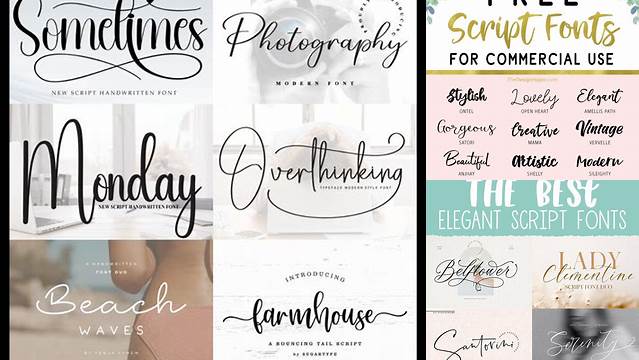
Free Commercial Use Script Fonts For Stunning Designs
Hey design lovers! Ever found yourself scrolling endlessly for that perfect script font that screams elegance but doesn't cost a dime? Yeah, me too! Finding high-quality, free for commercial use script fonts can feel like striking gold. These beautiful, flowing letterforms are fantastic for adding a personal touch, a touch of sophistication, or even a playful vibe to your projects. Whether you're designing a wedding invitation, a brand logo, a social media graphic, or a personal blog header, the right script font can make all the difference. But the key phrase here is 'commercial use.' You can't just grab any pretty font off the internet and slap it on a product you're selling. You need to make sure the license explicitly allows for commercial use. Luckily, there are tons of amazing designers and foundries out there who generously share their creations with commercial licenses, allowing us to use their work legally in our paid projects. So, let's dive into the wonderful world of free script fonts that won't break the bank but will definitely make your designs pop!
The Allure of Free Commercial Script Fonts
The magic of a script font lies in its ability to mimic the natural flow of handwriting. This makes it incredibly versatile, capable of conveying a wide range of emotions and styles. From the delicate and airy strokes of a modern calligraphy font to the bold and dramatic flair of a vintage brush script, these fonts can instantly elevate your design. When we talk about free for commercial use script fonts, we're essentially unlocking a treasure chest of design possibilities without the hefty price tag. This accessibility is crucial for small businesses, startups, freelancers, and hobbyists who are working with limited budgets but still want their brand or project to look polished and professional. The ability to legally use these fonts in materials intended for sale, marketing campaigns, or client work means you can build a strong visual identity without incurring licensing fees. It’s like getting a professional designer's touch without the agency cost. The inherent personality of script fonts adds a human element that sans-serif or serif fonts might not capture as easily. They can make your brand feel more approachable, your invitations more intimate, and your social media posts more engaging. Think about wedding invitations; a beautiful script font can set the tone for the entire event, hinting at the elegance and romance to come. For branding, a carefully chosen script font can communicate luxury, creativity, or a friendly, handcrafted feel. The key is understanding the nuances of each font and how it aligns with your brand’s message and target audience. With the vast array of free for commercial use script fonts available, you can experiment and find the perfect fit that resonates with your unique vision, ensuring your designs not only look good but also communicate effectively and ethically.
Finding Your Go-To Free Commercial Script Fonts
The Versatility of Script Fonts in Branding
When it comes to branding, the right free for commercial use script font can be a game-changer. It’s not just about looking pretty; it's about conveying the personality and essence of your brand. Think about a high-end patisserie; a delicate, elegant script font on their logo and packaging instantly communicates sophistication and quality. Contrast that with a craft brewery; a bolder, perhaps slightly distressed script font might evoke a sense of tradition, authenticity, and a hands-on approach. The key is to match the font’s style to your brand’s voice. Are you playful and energetic? Try a bouncy, casual script. Are you classic and timeless? Opt for a more formal, calligraphy-inspired script. Free for commercial use script fonts allow you to experiment with different brand identities without a significant financial investment. This is particularly beneficial for startups and small businesses trying to establish their presence. You can test out various script styles on your website, social media, marketing materials, and even product labels to see what resonates best with your target audience. Remember, consistency is key in branding. Once you’ve chosen a script font, use it consistently across all your touchpoints. However, don't feel pressured to use it everywhere. Script fonts are often best used as accent fonts – for headlines, call-to-action buttons, or signature elements – paired with a more legible sans-serif or serif font for body text. This creates visual hierarchy and ensures readability while still injecting that unique personality. The accessibility of free for commercial use script fonts empowers you to build a memorable and effective brand identity that stands out from the competition, all while staying budget-friendly.
Script Fonts for Invitations and Stationery
Weddings, birthdays, anniversaries – special occasions often call for a touch of elegance, and that's where free for commercial use script fonts truly shine. For wedding invitations, a flowing, romantic script font can set the tone for the entire celebration, evoking feelings of love, tradition, and sophistication. Imagine a beautiful script font for the couple’s names, contrasted with a cleaner serif font for the details. It’s classic, timeless, and utterly charming. Similarly, for baby shower invitations, a whimsical or playful script font can add a sweet, personal touch. The same goes for birthday cards, thank-you notes, and other personal stationery. Using free for commercial use script fonts allows you to create custom-designed stationery that feels incredibly personal and high-end, without the custom price tag. You can design your own save-the-dates, place cards, menus, and thank-you cards, all perfectly coordinated with a beautiful script font. This is especially valuable for DIY brides or anyone planning an event on a budget. Beyond just invitations, consider using script fonts for envelope addressing or as decorative elements on thank-you notes. The key is to balance the script font with more readable fonts for important information to ensure clarity. However, for purely decorative elements or highlighting names, a script font can be perfect. Many free for commercial use script fonts are designed with this very purpose in mind, offering the beautiful aesthetic of calligraphy without the need for professional design services. They empower you to add that special, handcrafted feel to your most cherished moments, making them even more memorable.
Exploring Different Styles of Free Commercial Script Fonts
The world of free for commercial use script fonts is incredibly diverse. You’ve got everything from the elegant strokes of modern calligraphy to the bold, brush-like strokes of a handwritten font. Let's break down some of the popular styles you'll encounter. Modern Calligraphy Fonts are characterized by their varying thick and thin lines, dramatic swooshes, and often an airy, elegant feel. They're perfect for wedding invitations, branding for lifestyle businesses, and social media graphics that aim for a sophisticated look. Then there are Brush Script Fonts, which mimic the look of a brush pen or paintbrush. These can range from subtle and refined to bold and energetic, often with a bit of texture. They work wonderfully for branding that wants to convey creativity, passion, or a handcrafted vibe. Casual Script Fonts offer a more relaxed, everyday handwriting feel. They’re typically easy to read and friendly, making them ideal for blogs, personal branding, or designs that need a touch of approachable warmth. Think of that neat, personal note you might write – that’s the vibe. We also have Vintage or Retro Script Fonts, inspired by lettering from past eras. These might have a bolder feel, perhaps with a slight slant or unique flourishes, reminiscent of old signage or classic advertisements. They're great for brands wanting to evoke nostalgia or a classic, established feel. Lastly, Display Script Fonts are designed for impact and often feature exaggerated flourishes, unique ligatures, or a very distinct style. While they might be less readable for long texts, they’re fantastic for eye-catching headlines, logos, and short bursts of text where style is paramount. Each of these styles, when available as free for commercial use script fonts, provides a unique avenue to express different moods and aesthetics in your design work. Exploring these variations allows you to build a rich font library that can cater to almost any creative brief.
Enhancing Readability with Script Fonts
While the aesthetic appeal of free for commercial use script fonts is undeniable, readability is a crucial factor, especially when using them for more than just decorative purposes. Script fonts, by their very nature, can sometimes be challenging to read, particularly in smaller sizes or for extended blocks of text. This is because the letters are often connected, with flourishes and varying baseline shifts that mimic handwriting. To ensure your message gets across loud and clear, smart pairing is your best friend. Use your chosen script font for headlines, titles, or key phrases where its style can make a big impact. Then, pair it with a clean, legible sans-serif or serif font for body copy. This creates a beautiful contrast and a clear visual hierarchy. For example, on a wedding invitation, use a gorgeous script font for the couple’s names and the main heading, but use a simple serif font for the date, time, and location details. Another tip is to choose script fonts that have a more open letterform design and less dramatic flourishing for areas where readability is more important. Some free for commercial use script fonts are specifically designed with enhanced readability in mind, offering a balance between style and legibility. When using script fonts, pay attention to letter spacing (kerning) and line spacing (leading) as well. Proper spacing can significantly improve how easily a script font can be read. Always test your chosen font in different sizes and on different backgrounds to ensure it remains legible. Remember, the goal is for your design to be both beautiful and functional. Finding that sweet spot with free for commercial use script fonts means selecting ones that are not only visually appealing but also maintain clarity for your intended audience and purpose.
Balancing Script and Other Font Types
Creating a harmonious design often involves a thoughtful combination of different font types. When working with free for commercial use script fonts, it’s essential to know how to balance them with other font families to achieve a professional and aesthetically pleasing result. The most common and effective approach is to pair a script font with a contrasting sans-serif or serif font. Sans-serif fonts (like Arial or Open Sans) are clean, modern, and highly readable, making them perfect for body text or informational content that accompanies your script accent. Serif fonts (like Times New Roman or Georgia) have small decorative strokes (serifs) on the letters and often convey a sense of tradition, authority, or sophistication. They can also pair beautifully with script fonts, especially if you're aiming for a classic or elegant look. When choosing a pairing, consider the overall mood you want to create. If your script font is very ornate and bold, opt for a simple, clean sans-serif to avoid overwhelming the design. If your script font is delicate and airy, a classic serif font might provide a grounding element. Avoid pairing two highly decorative fonts together, as this can lead to visual clutter and reduce legibility. The goal is for the fonts to complement each other, not compete. Think of the script font as the flourish, the personality, and the other font as the reliable workhorse carrying the main message. Free for commercial use script fonts provide a fantastic way to add this personality without the cost, allowing you to experiment with pairings until you find the perfect combination that makes your design truly sing. Always test your combinations in context – on your website mockup, invitation design, or marketing material – to ensure they work well together visually and functionally.
Leveraging Script Fonts for Social Media Graphics
Social media platforms are all about grabbing attention quickly, and free for commercial use script fonts can be incredibly effective tools for creating eye-catching graphics. Whether you’re designing a quote image, a promotional banner, or a stylish post caption overlay, a well-chosen script font can make your content stand out. For instance, a quote overlay featuring an inspiring message in an elegant script font can be highly shareable and visually appealing. Similarly, using a bolder script font for a sale announcement or a special offer can draw immediate attention. The key here is to use them strategically. Script fonts are usually best for short text elements – headlines, calls to action, or highlighting specific words or phrases. Think about platforms like Instagram or Pinterest, where visual appeal is paramount. A beautiful script font can instantly elevate the perceived quality of your brand or personal profile. Free for commercial use script fonts give you the flexibility to maintain a consistent visual style across your social media without investing in expensive font licenses. You can easily create branded templates featuring your chosen script font for recurring posts, like